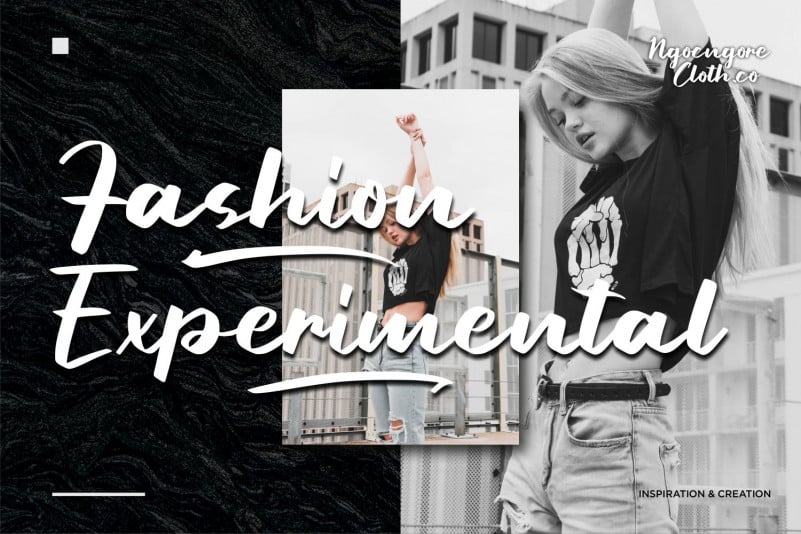
Aprillia Wijaya Font
Introducing by Allouse.Studio Proudly Present, Aprillia Wijaya – Handmade Lettering Font. It’s a Handmade Lettering Font. Aprillia Wijaya is perfect for product packaging, branding project, megazine, social media, wedding, or just used to express words above the background.